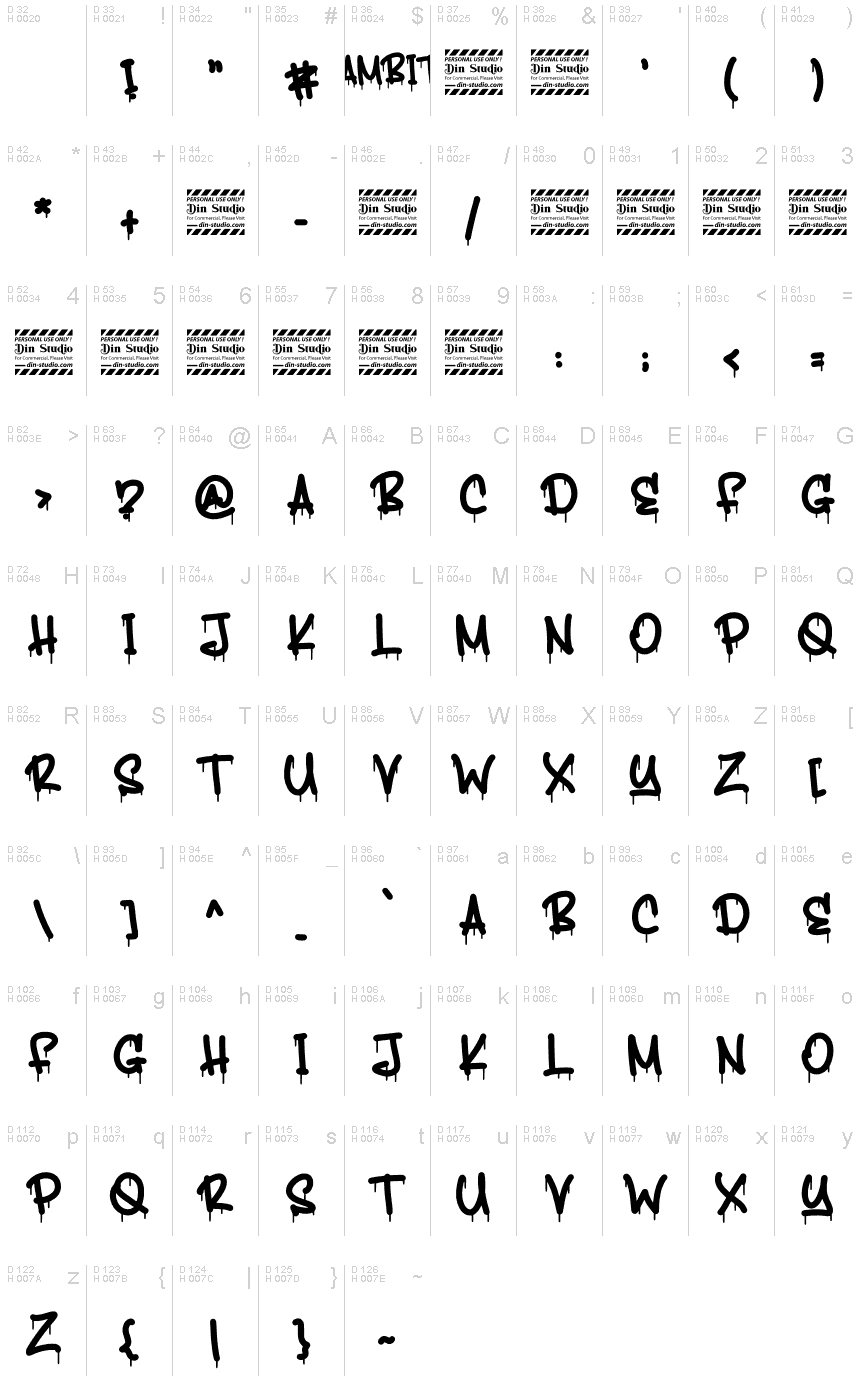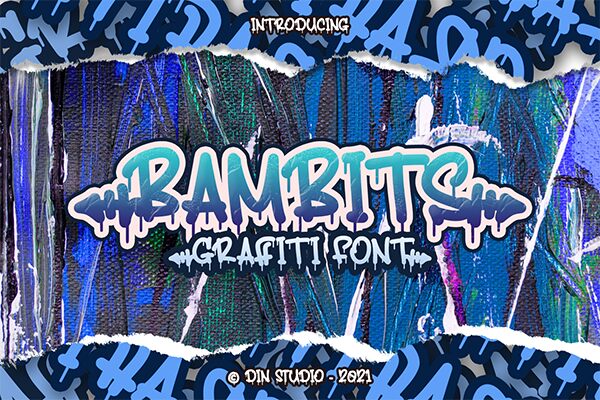
Bambits emerges from the vibrant streets to your creative canvas, bringing with it the raw, expressive power of graffiti art. Designed by the talented Din Studio, this font exudes an urban charm that is both rebellious and engaging. Its bold bubble lettering infused with graffiti flair makes Bambits a go-to choice for designers aiming to inject a dose of streetwise authenticity into their work.
Whether you're crafting eye-catching headlines, envisioning striking branded merchandise, or looking to add a dynamic edge to your digital content, Bambits offers versatility across a spectrum of creative endeavors. The font's legible yet distinct style ensures that your message not only stands out but also resonates with an audience that appreciates modern artistry. Embrace the spirit of street art and let Bambits transform your project into a masterpiece of contemporary design.